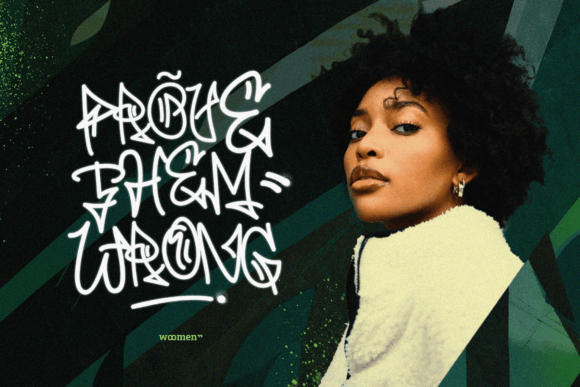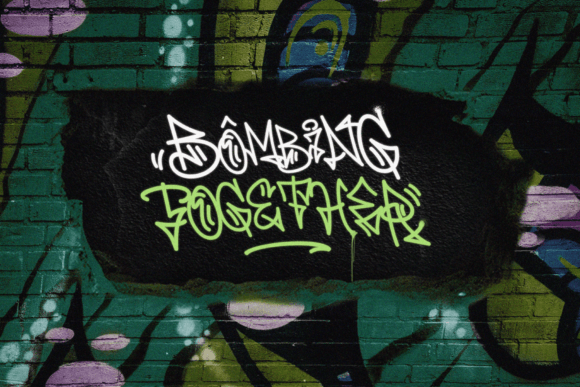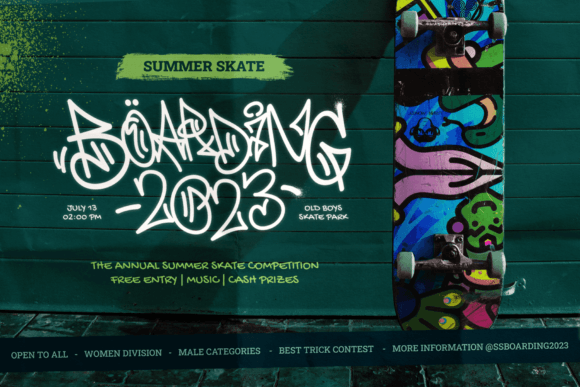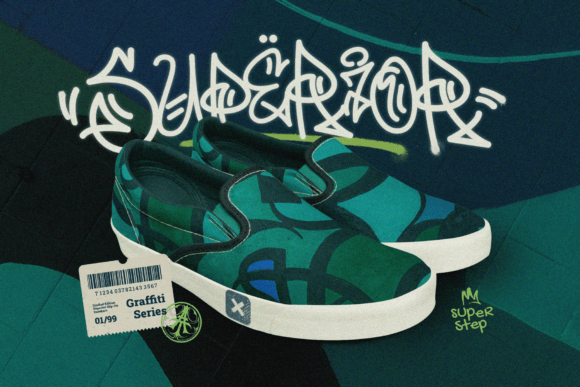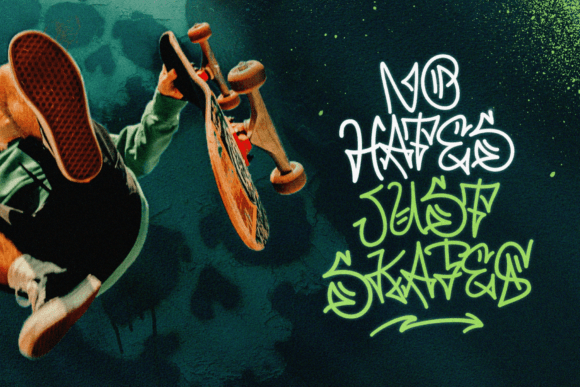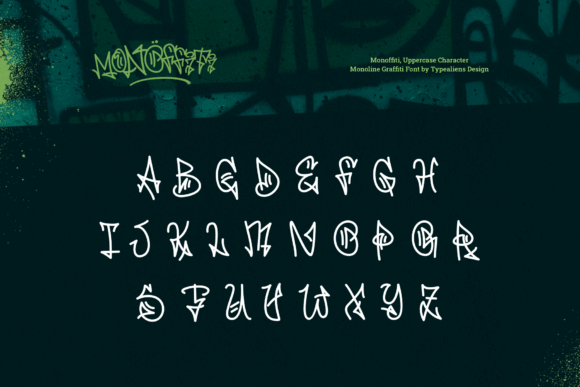
Introduction to Monoffiti Font
Monoffiti is a modern graffiti display font with monoline-style strokes, suitable to support urban art or street art designs.
In addition, it can be used for fashion designs related to works of art, or by artists who make merchandise designs .
Key Features of Monoffiti Font